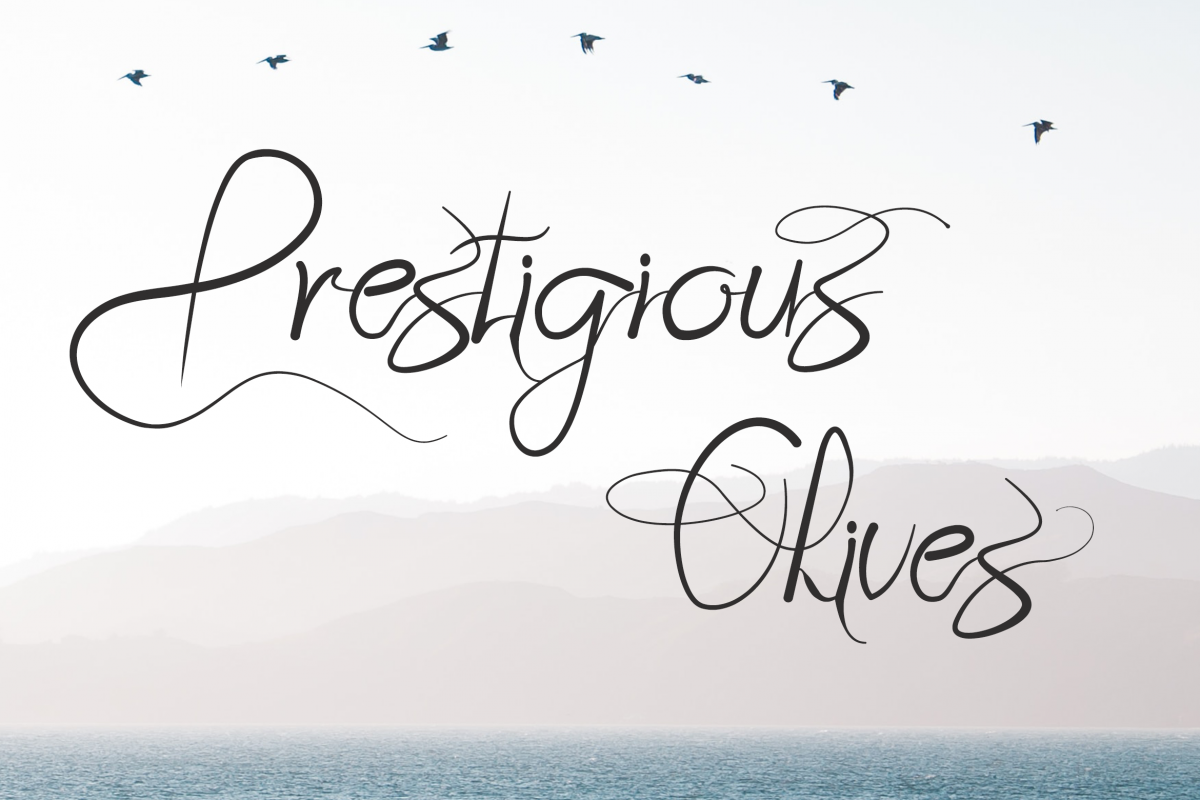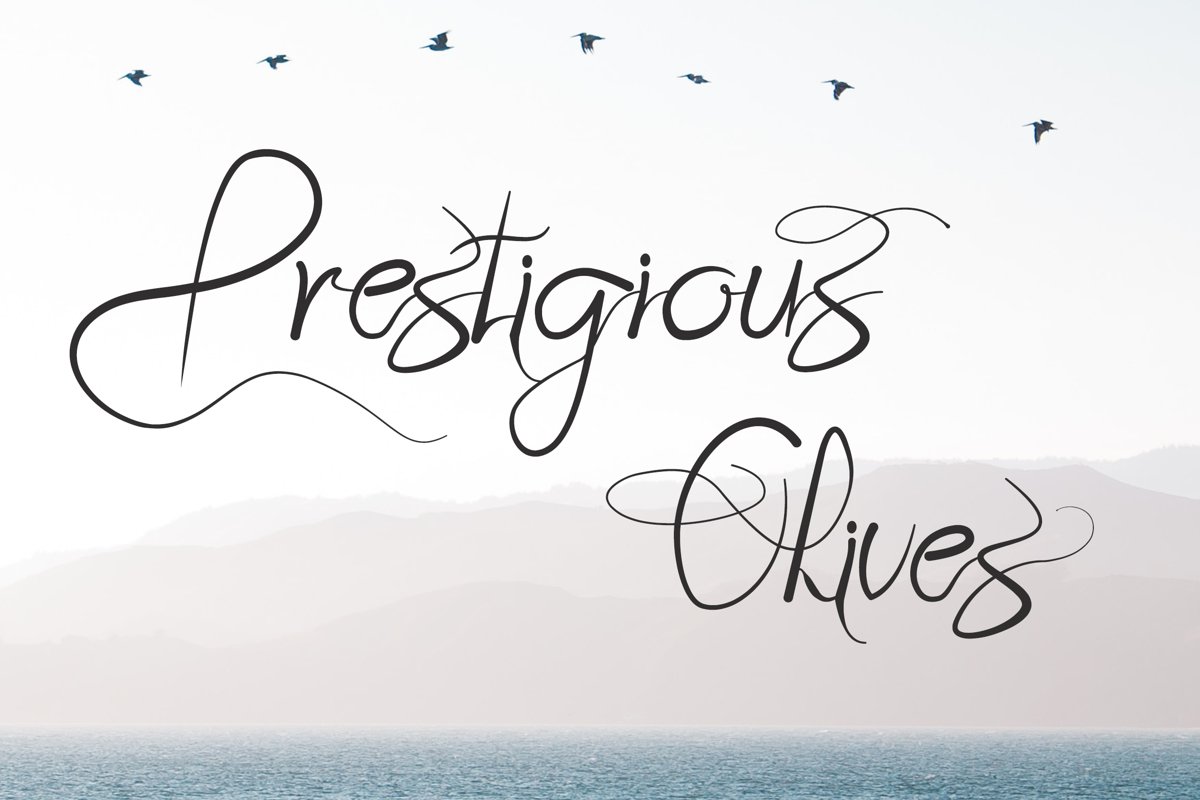
Prestigious Olives
Prestigious Olives - is a script fonts made from scratch.
Suitable for classic text book, Food Menu, and others that strongly shown the beautiful of a Text.
Equipped with font:
- Numbers
And of course there are several other features
- Alternates
- Swashes